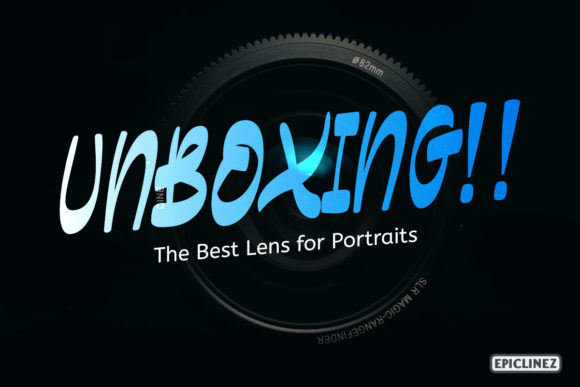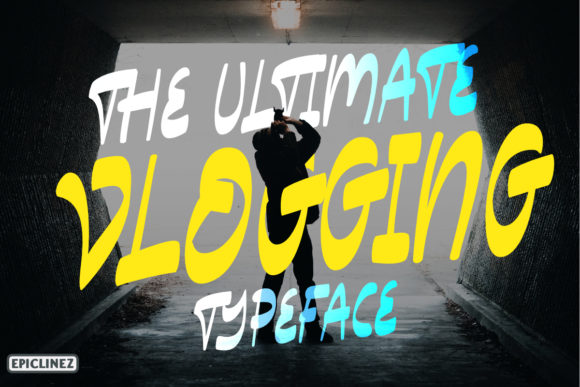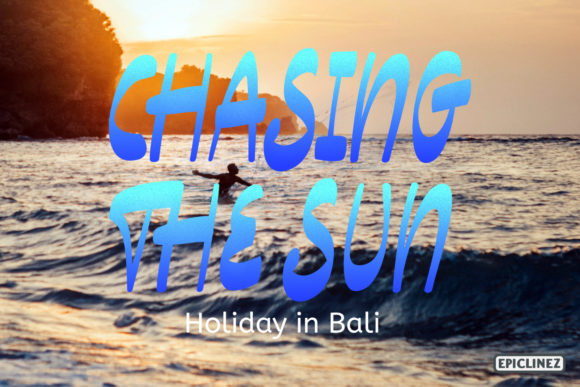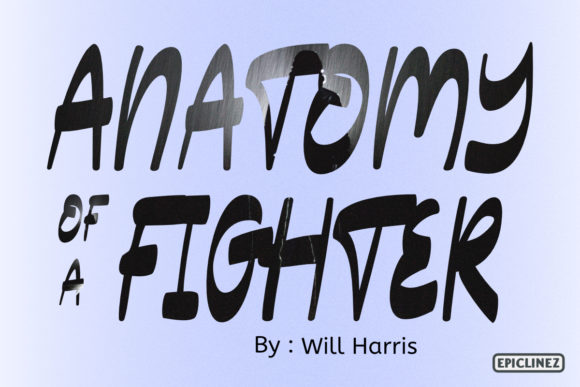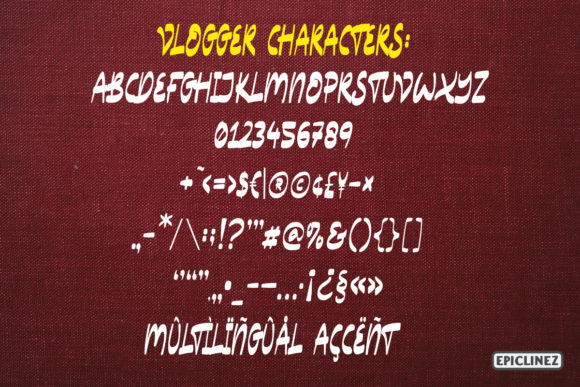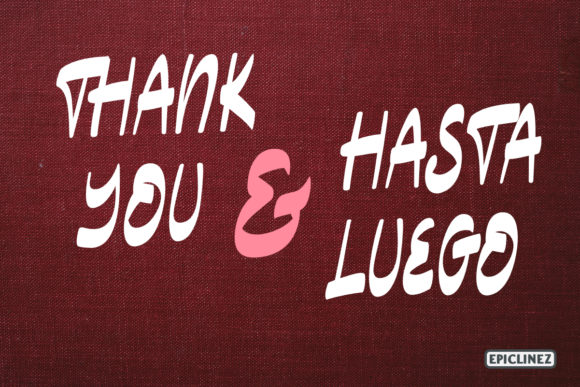
Vlogger Font
About Vlogger Font
Vlogger is a stylish handwritten font. It features a bold and casual style. Use it to create eye-catching headlines, titles, magazines, adverts, flyers, posters, and more!